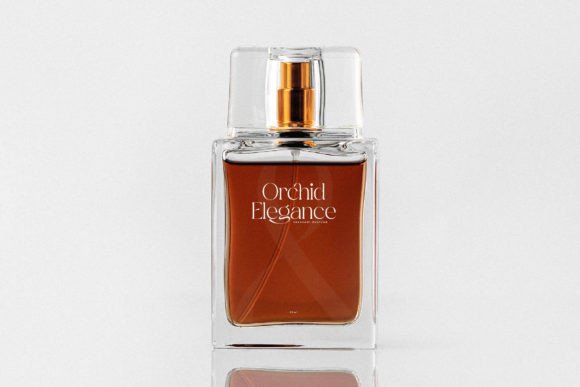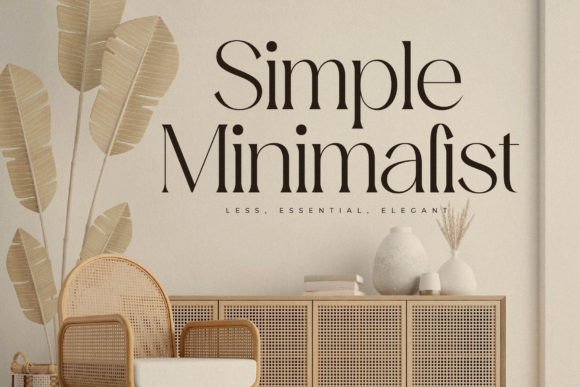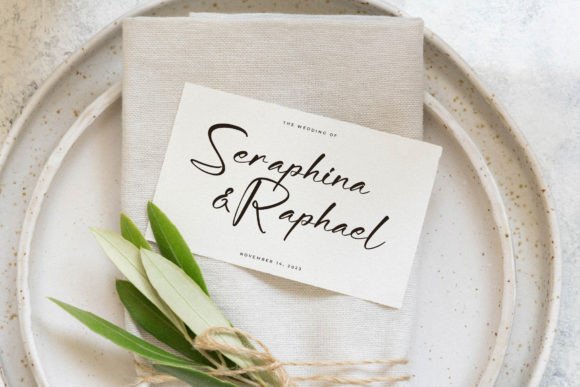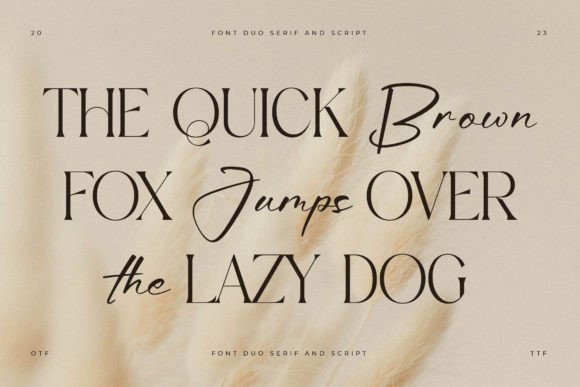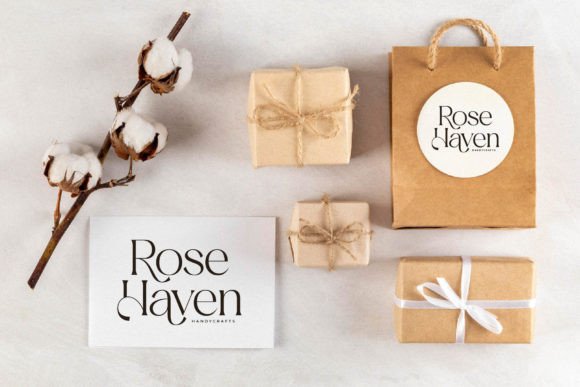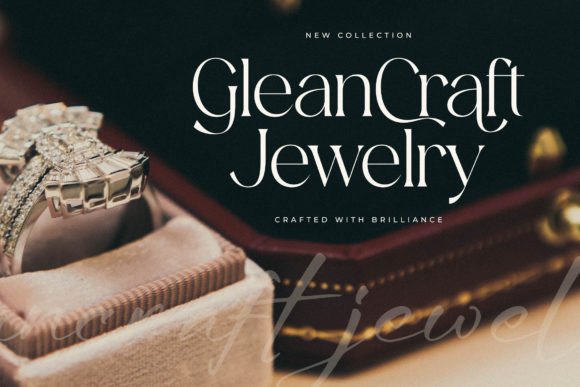
Aurora Magnolia Font: Elevate Your Designs with Elegance and Versatility
In the world of typography, finding the perfect font that combines style, elegance, and versatility can be a daunting task. However, if you’re looking for a duo that can seamlessly blend classic serifs with the artistic flair of a script, look no further than the Aurora Magnolia Font. This charming pair of fonts is designed to offer the best of both worlds, making it an ideal choice for designers and crafters aiming to add a touch of sophistication to their projects.
The Essence of Aurora Magnolia Font Duo
The Aurora Magnolia Font Duo is more than just a pair of fonts; it’s a design solution that brings together the timeless appeal of serifs and the fluidity of a script. This combination allows for a wide range of creative possibilities, making it perfect for projects that require a traditional touch or a modern twist. Whether you’re working on a branding project, a wedding invitation, a fashion magazine, or a packaging design, this font duo provides the versatility needed to bring your vision to life.
Elegant Serifs and Graceful Script
At the heart of the Aurora Magnolia Font Duo are its elegant serifs and graceful script. The serif font boasts classic lines and refined details, exuding a sense of tradition and reliability. On the other hand, the script font adds a touch of whimsy and personality, with flowing lines that can add movement and emotion to your designs. Together, they create a harmonious balance that can elevate any project from ordinary to extraordinary.
Perfect for a Variety of Creative Endeavors
One of the standout features of the Aurora Magnolia Font Duo is its adaptability. It’s suitable for a wide array of creative endeavors, including:
- Branding and Logotypes: The combination of serif and script fonts allows for the creation of unique and memorable logos that can represent your brand’s personality.
- Wedding and Event Stationery: Add a touch of elegance and romance to your wedding invitations, menus, and other event materials.
- Fashion and Beauty: The modern yet sophisticated feel of Aurora Magnolia makes it perfect for fashion magazines, beauty blogs, and product packaging.
- Packaging and Product Design: Stand out on store shelves with elegant and eye-catching packaging that reflects your brand’s style.
Why Choose Aurora Magnolia Font?
Choosing the Aurora Magnolia Font Duo for your projects comes with several advantages:
- Timeless Appeal: The classic serif combined with a modern script ensures that your designs remain relevant and stylish for years to come.
- Versatility: Use the fonts interchangeably or together to create visually appealing hierarchies and emphasis in your designs.
- Ease of Use: Designed with readability in mind, Aurora Magnolia fonts are easy to use in various contexts, from digital platforms to print materials.
The Aurora Magnolia Font Duo is a powerful tool for designers and crafters looking to infuse their projects with elegance, versatility, and a touch of sophistication. By combining the best elements of serifs and scripts, this font duo offers a unique solution for a wide range of creative endeavors. Whether you’re aiming for a traditional look or a modern aesthetic, Aurora Magnolia provides the perfect blend of style and functionality to bring your designs to the next level.
Embrace the beauty and versatility of the Aurora Magnolia Font Duo in your next project and experience the difference it can make in creating visually stunning and memorable designs.